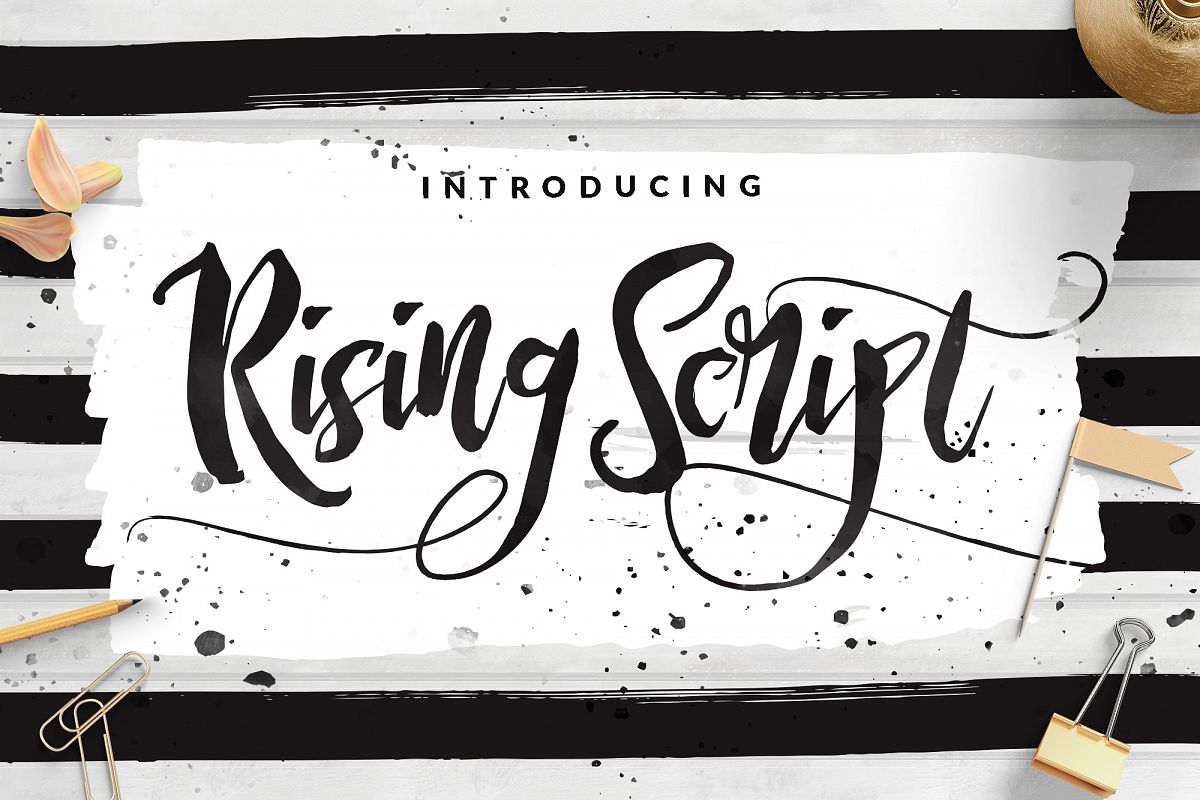
Rising Brush Script
Rising Brush swash.
Rising Brush.
Rising Brush Script is a chaotic beautiful script.Imperfect flow and grunge style combined with script create awesome elegant and grunge feel at the same time. Awesome for designing book covers, film covers, apparel, cards, logos, posters, etc. Opentype features gives you more alternatives in designing.